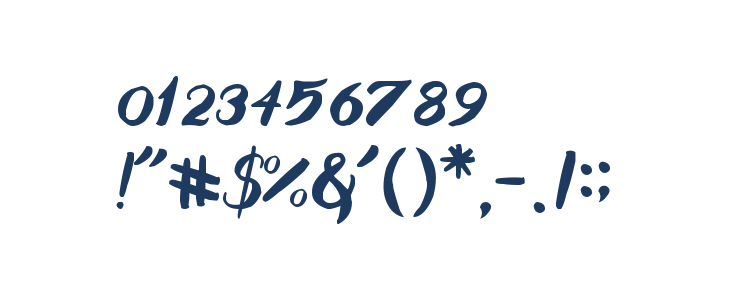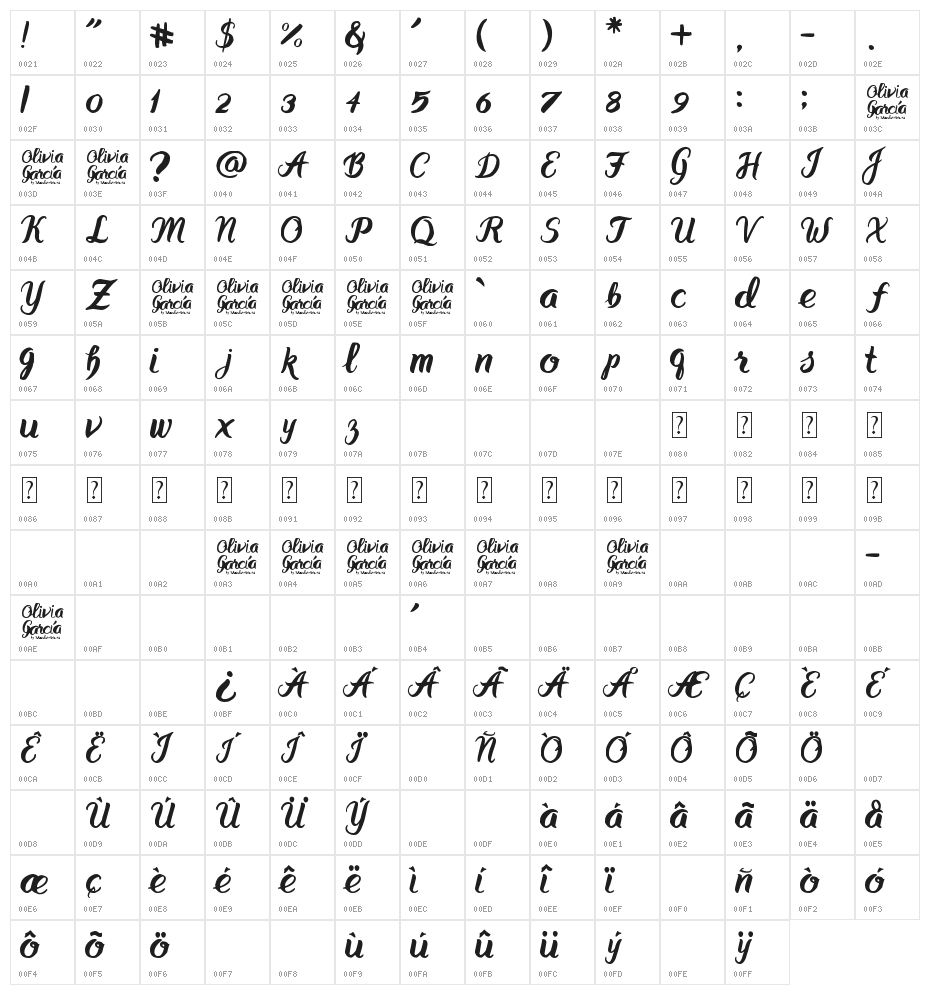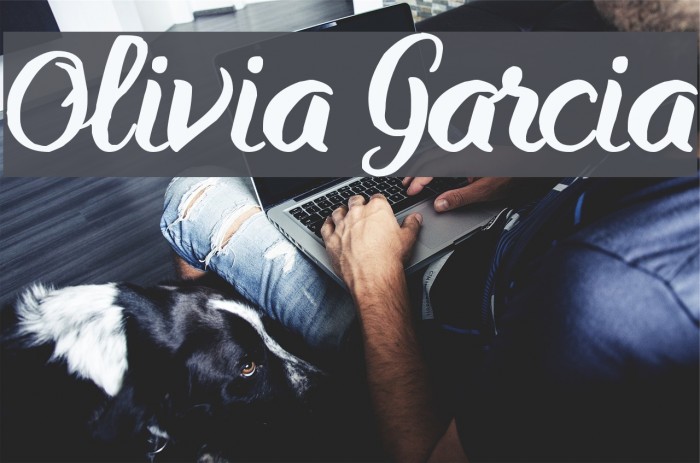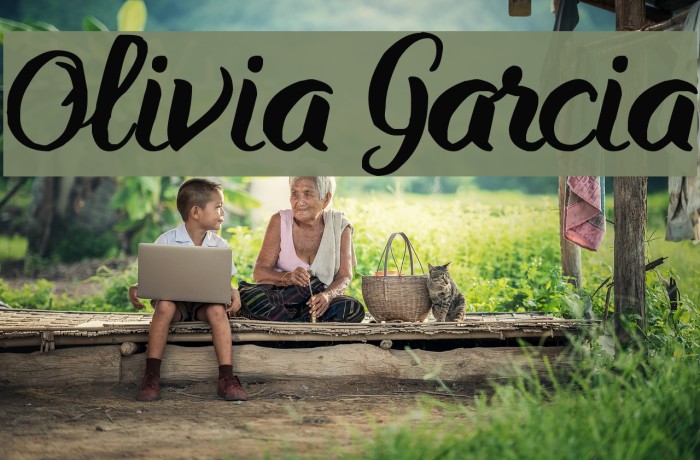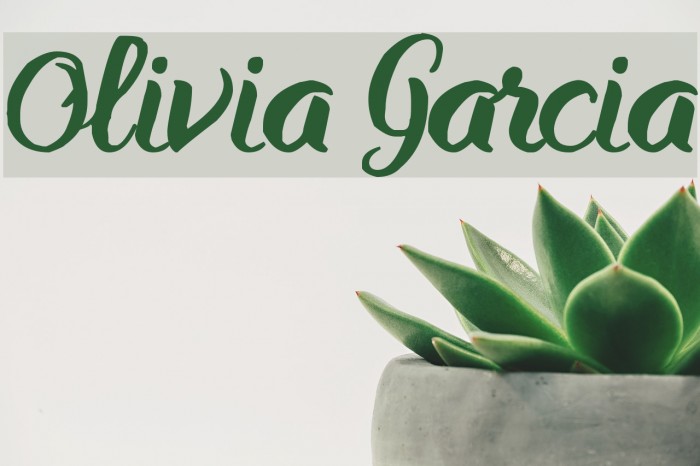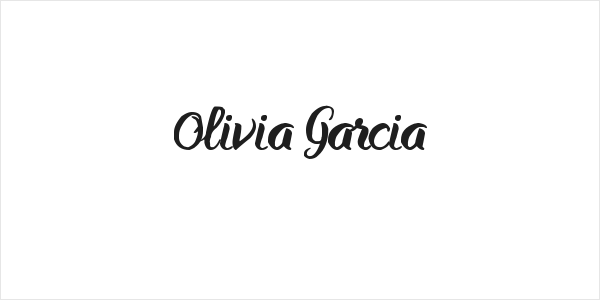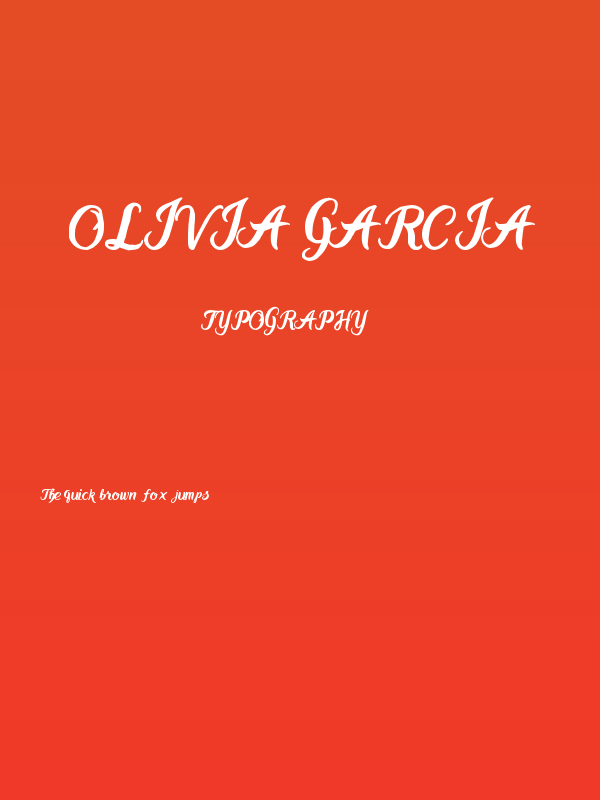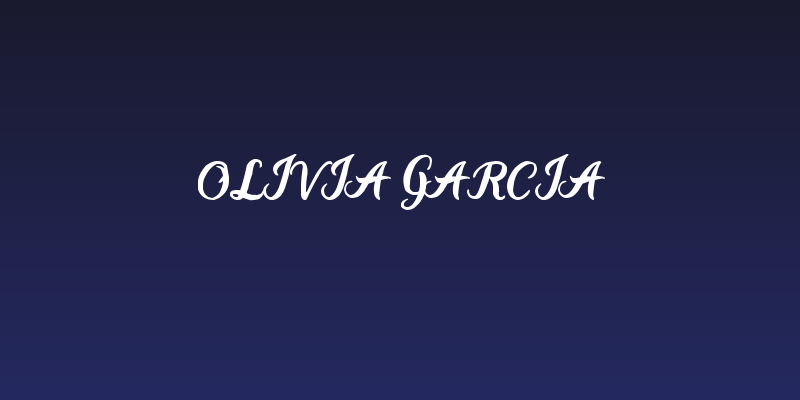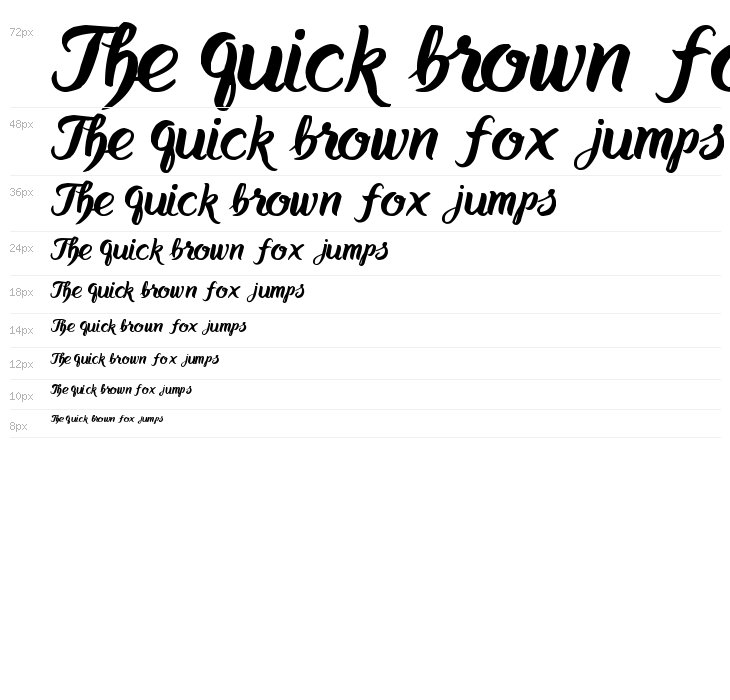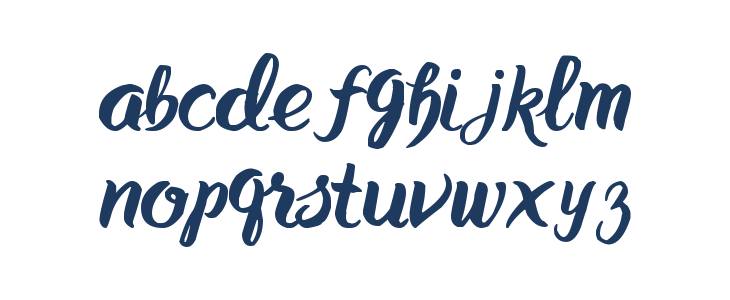
This font features a bold and expressive script style, characterized by its flowing, cursive letters that evoke a sense of elegance and sophistication. The uppercase letters are particularly ornate, with sweeping curves and flourishes that add a decorative touch. The lowercase letters maintain a consistent style, with smooth connections and rounded forms that enhance readability. The numerals are equally stylized, maintaining the font's overall aesthetic. Special characters are designed to complement the letterforms, ensuring a cohesive look across all text elements. This font is ideal for projects that require a personal, handwritten feel, such as invitations, greeting cards, or branding materials.
Use CaseHeadlines, Logos, Invitations
Proposed ProjectsIdeal for invitations, greeting cards, branding materials, and decorative headlines.